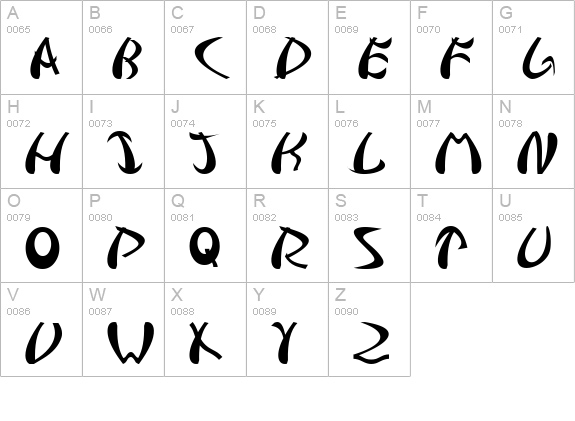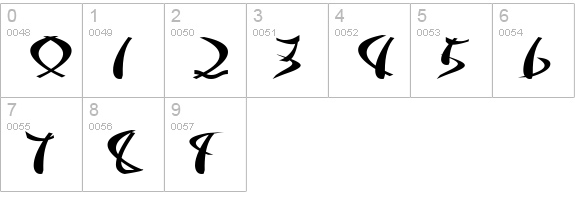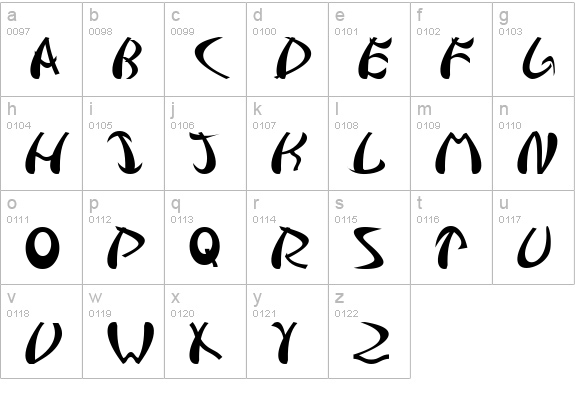
Samurai Font Details
Introducing Samurai font, a striking and powerful typeface that embodies the essence of ancient Japanese warriors. This font captures the spirit of honor, discipline, and unwavering strength, making it the perfect choice for projects that demand boldness and character. With its sharp edges and intricate details, Samurai font pays homage to the artistry and precision of the samurai's katana sword. This remarkable font is not only visually captivating but also versatile, offering a range of weights and styles to suit various design needs. Whether you're working on a logo, poster, or website, Samurai font will add an air of sophistication and uniqueness to your creations. But here's the best part - Samurai font is available for free! That's right, you can freely download this exceptional typeface at FontsMarket.com. We believe that creativity should never be hindered by financial constraints, and we are committed to providing designers with high-quality resources without any cost. Don't miss out on the opportunity to enhance your designs with the elegance and power of Samurai font. Download it now and embark on a journey of artistic expression, where your words and visuals can leave a lasting impact on your audience. Unleash your inner warrior and let Samurai font guide you towards design greatness.